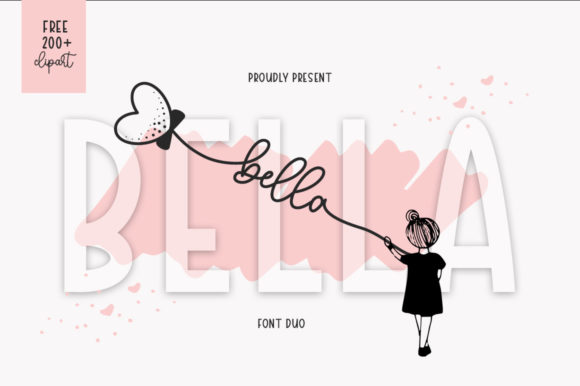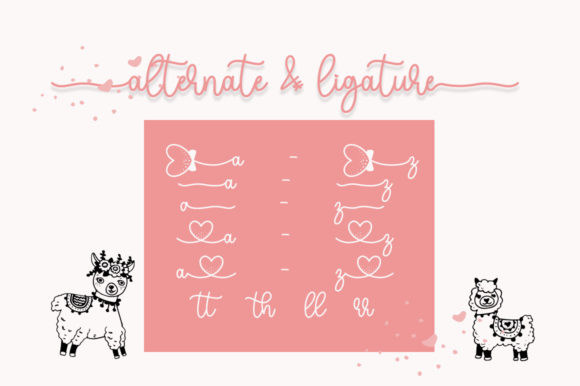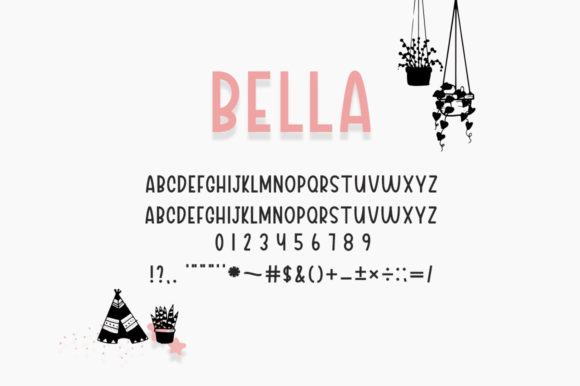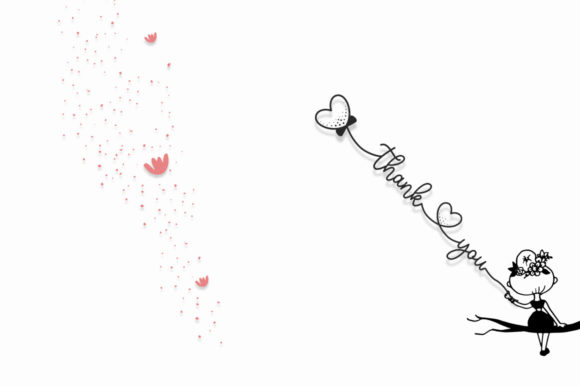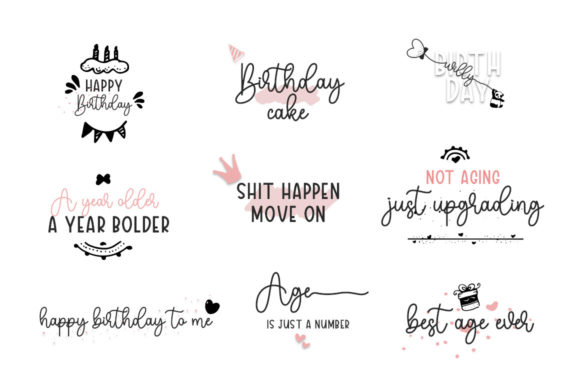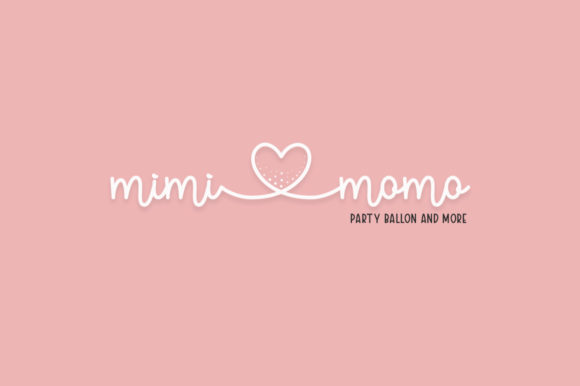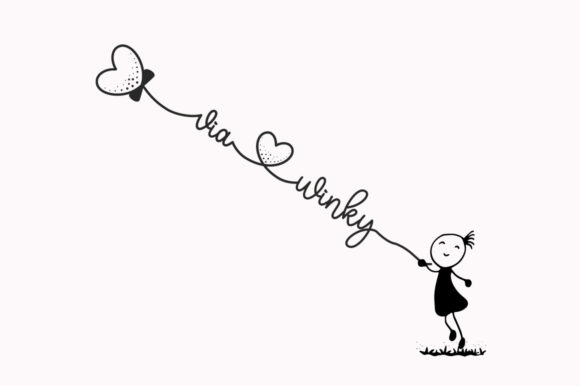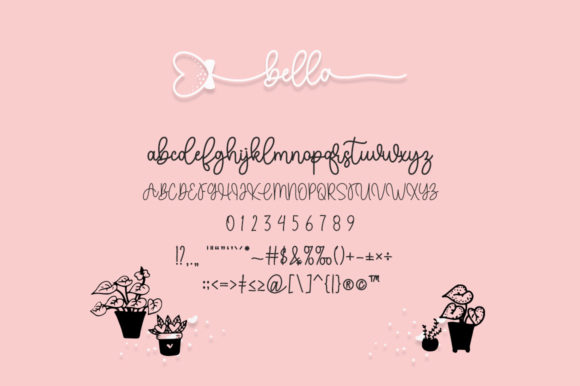
Bella Font
About Bella Font
Bella consists of two fonts designed to complement each other perfectly. Together or apart, these fonts are ideal for adding a chic and cheery touch to your crafts. Bella is PUA encoded which means you can access all glyphs and swashes with ease!